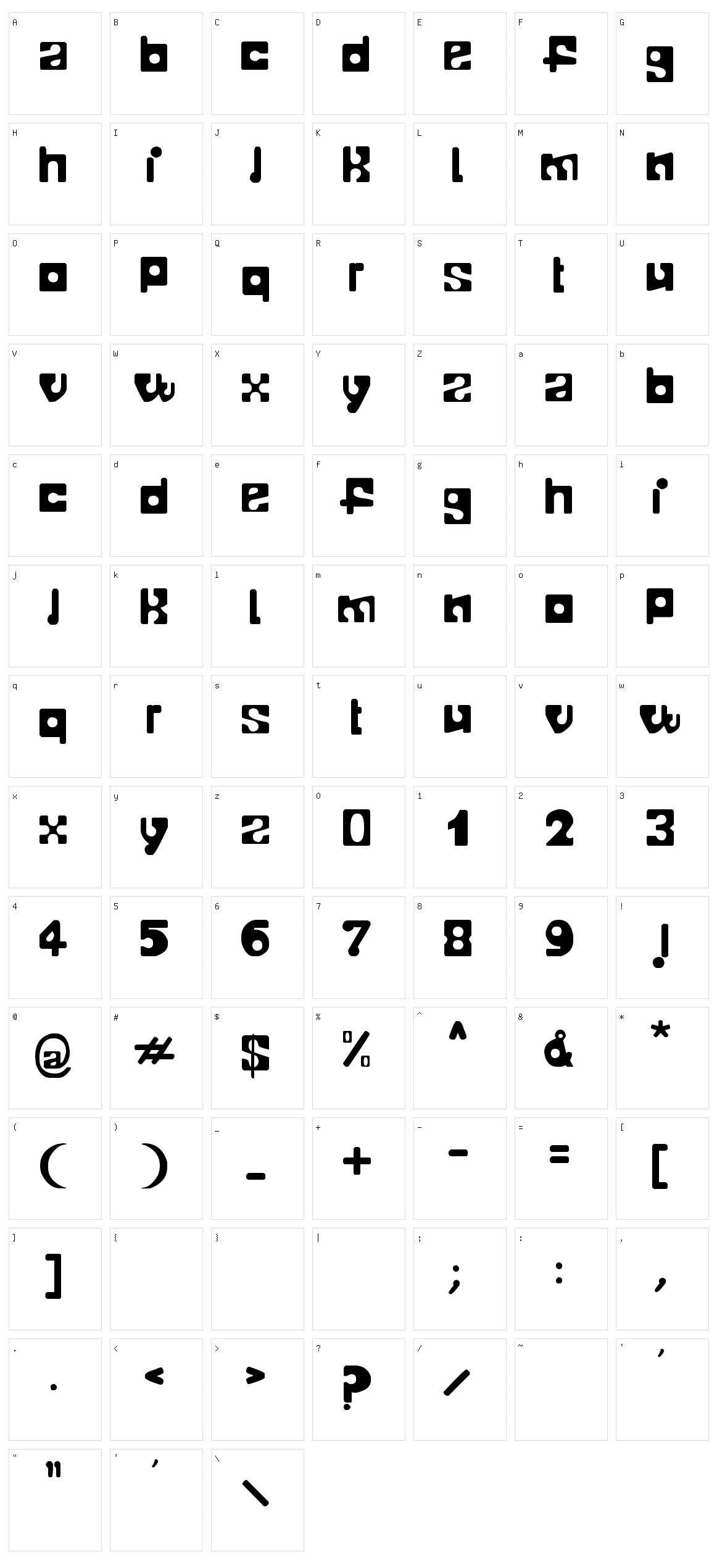
The free font Telopone is carefully designed by Pablo DÃaz Redondo, showcasing a thoughtful balance of creativity and usability and falls under the Groovy font style. When you download the ZIP file, it contains only 11.01 KB of font files, making it lightweight and quick to download. Please review the license details below to understand permitted usage and distribution rights. If license information is not available, we recommend using this font for personal projects only or contacting the author directly for commercial usage permissions.